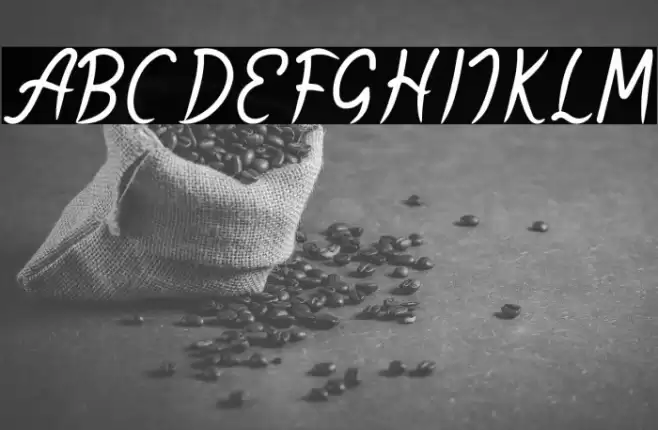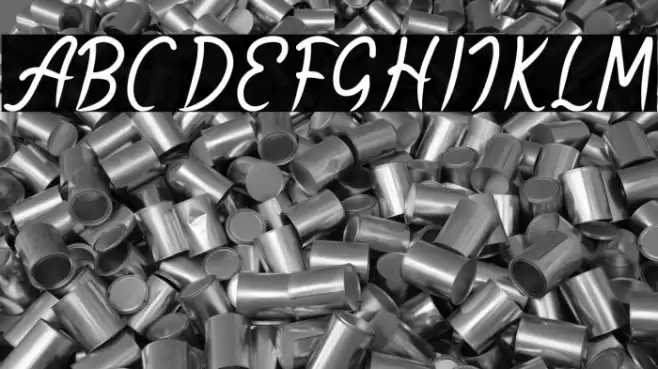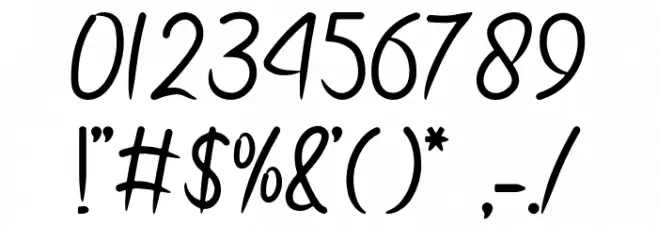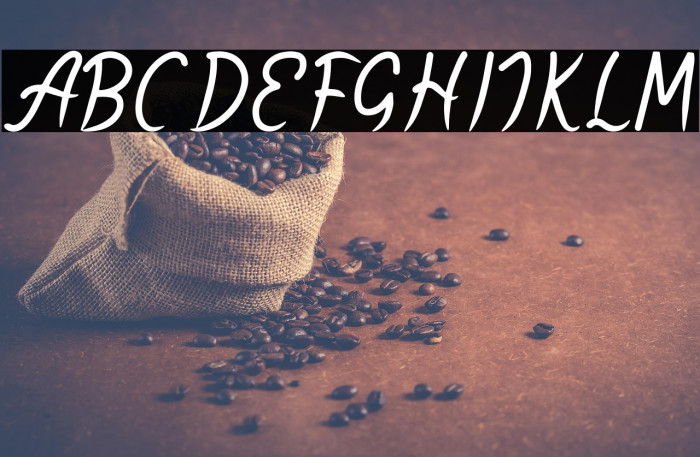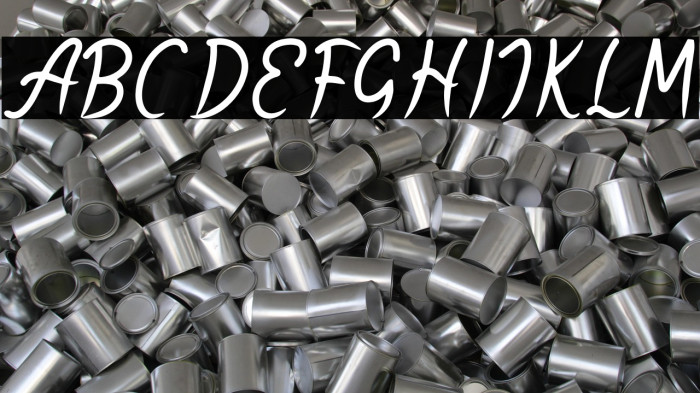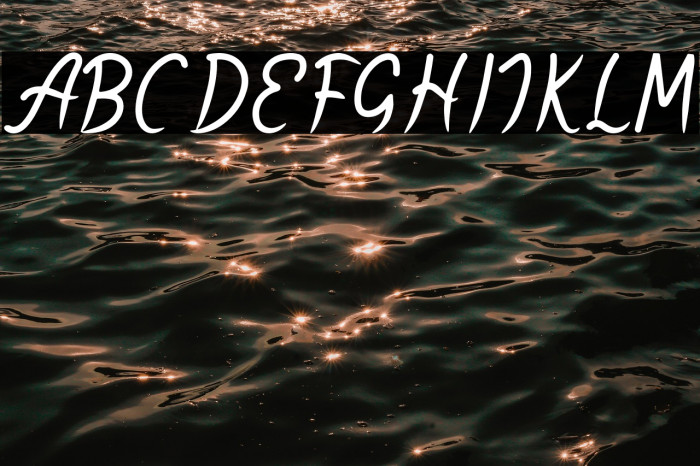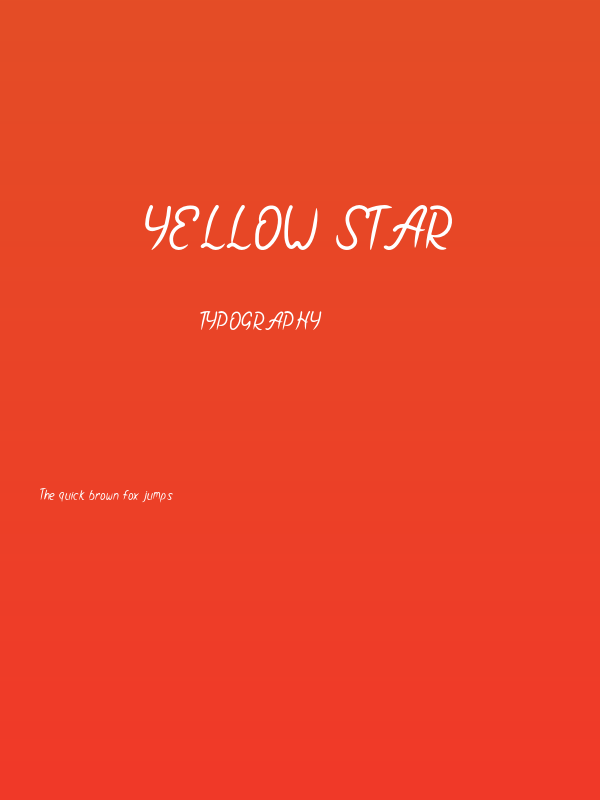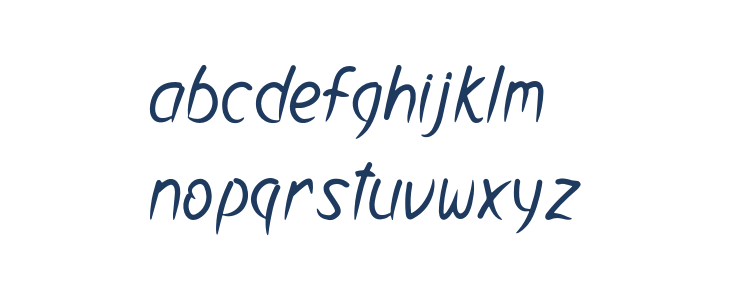
Yellow Star Font
Yellow Star Description
This font exhibits a lively and dynamic script style, characterized by its fluid and cursive letterforms. The uppercase letters are slightly elongated, with a playful tilt that adds a sense of motion and energy. The lowercase letters maintain a consistent flow, enhancing readability while preserving the font's whimsical nature. The numerals are well-integrated, matching the overall aesthetic with their rounded and slightly slanted forms. Special characters are thoughtfully designed, complementing the alphabet with their cohesive style. The font's overall appearance is both casual and elegant, making it suitable for a variety of creative applications.
A lively and dynamic script font with fluid, cursive letterforms from Uncategorized fonts.
- Proposed Projects: Ideal for greeting cards, invitations, branding, and creative projects requiring a personal touch.
- Use Case: Logos, Invitations, Greeting Cards